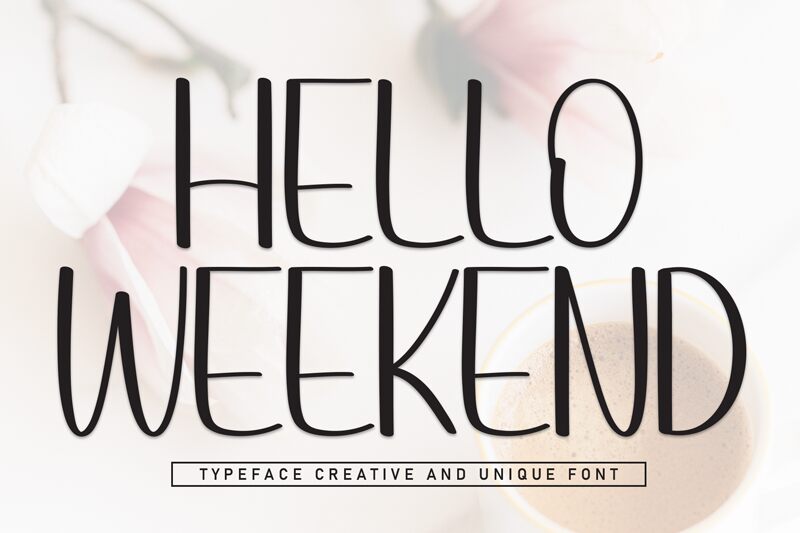
Hello Weekend
Hello Weekend font by Andi Moz is a handwritten casual font combining modern but elegant vibes in every hand-drawn letterform. Rectangular in appearance and within normal width, this free handwritten font supports stylish characters perfect for every transportation and/or urban tourism-related design project. Proper lining makes it formal, adding body text legibility to its infinite functional uses.
You can use Hello Weekend to transform texts included in book covers, magazines, greetings cards, descriptions on race cars or food trucks, supermarket signs, and shop signage. Posters of all types including school posters get better when displaying its text while Happy Weekend finds itself useful also in invitations made for weddings or any sort of celebration event.